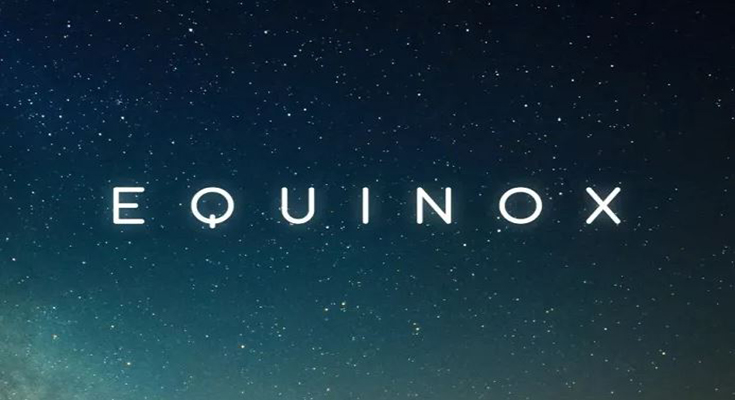
Equinox Font is a modern, minimal, and clean typeface with slightly rounded edges and great versatility. It can be used in headings and body text and is ideal for social media and websites.
An Istanbul-based UI & Type designer, Tugcu Design Co takes the credit for designing and publishing this font.
It’s not as futuristic as my other sci-fi fonts but it’s very versatile and can be used for non-sci-fi purposes.
Each letter is professionally drafted with a straightforward structure. So, you can really create great designs with its help without any mistakes.
It features a sleek and minimalistic design with clean lines and rounded edges, making it perfect for a wide range of design projects.
Due to its decent structure, you can create covers, posters, magazines, signs, game graphics, product design, product packaging, newspapers, social media posters, signs, flyers, headers, titles, banners, cards, brand logos, official cards, t-shirt printing, mockups, banner ads, etc.
The font is easy to read and works great for both print and digital designs, making it a go-to choice for modern branding, packaging, and web design projects.